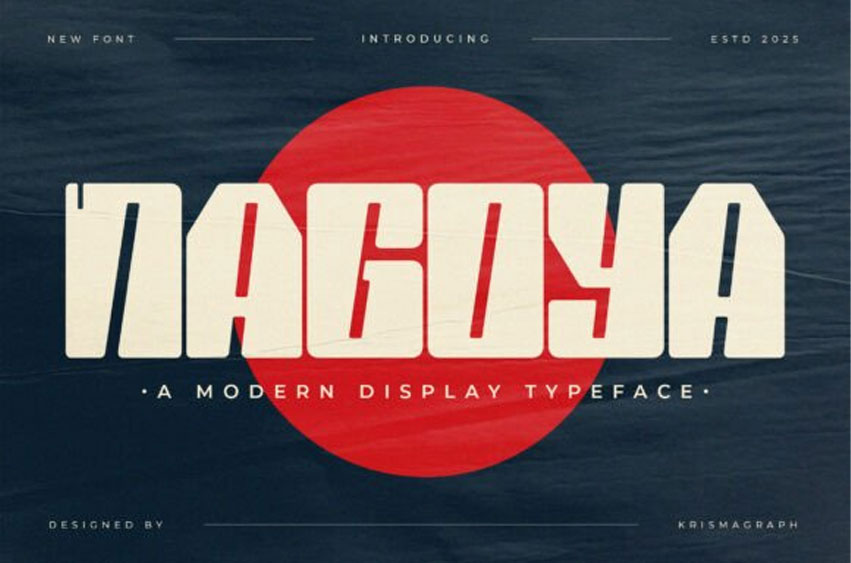
Nagoya Font is a modern display typeface featuring bold geometry, strong structure, and contemporary character. Inspired by Japanese-influenced poster typography and modern editorial layouts, this font delivers a confident and clean visual identity. It performs exceptionally well for headlines, posters, branding systems, editorial layouts, and digital projects that demand impact and clarity.
This Nagoya typeface features unique, angular cutouts and thick, ultra-expanded strokes that evoke a sense of modern urbanism and industrial strength. It is an ideal candidate for high-impact posters, street-wear branding, and avant-garde editorial layouts that need a futuristic or heavy-duty aesthetic.
To elevate your design, pair the Nagoya font with a minimalist monolinear sans-serif to create a striking contrast between the headline and body text. Its monolithic letterforms and sharp terminals make it a powerful choice for designers looking to create a “blockbuster” visual identity that is both legible and incredibly distinctive.
With balanced proportions and sharp details, Nagoya provides excellent legibility while maintaining a distinctive modern style. Supported by multilingual characters, it is built for global creative use.